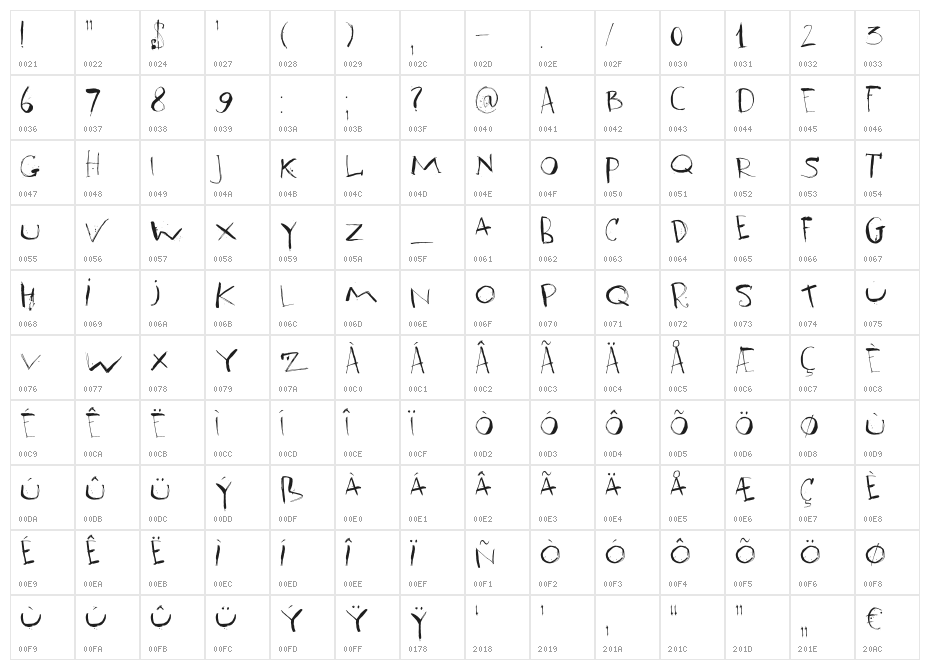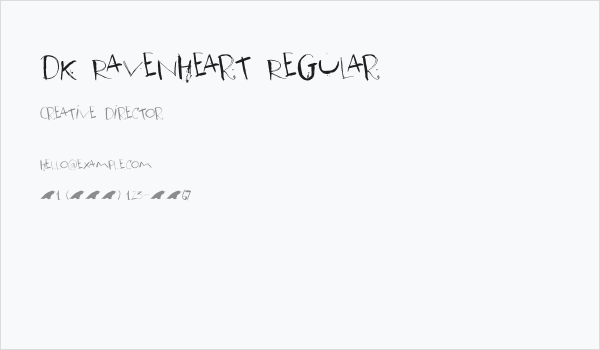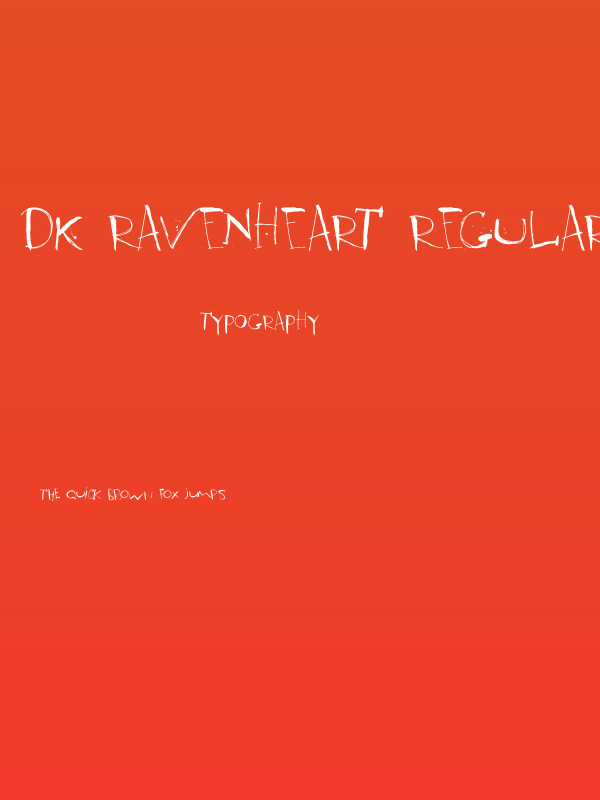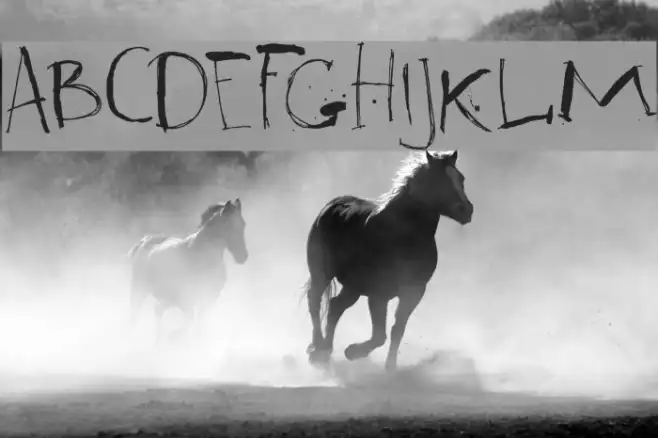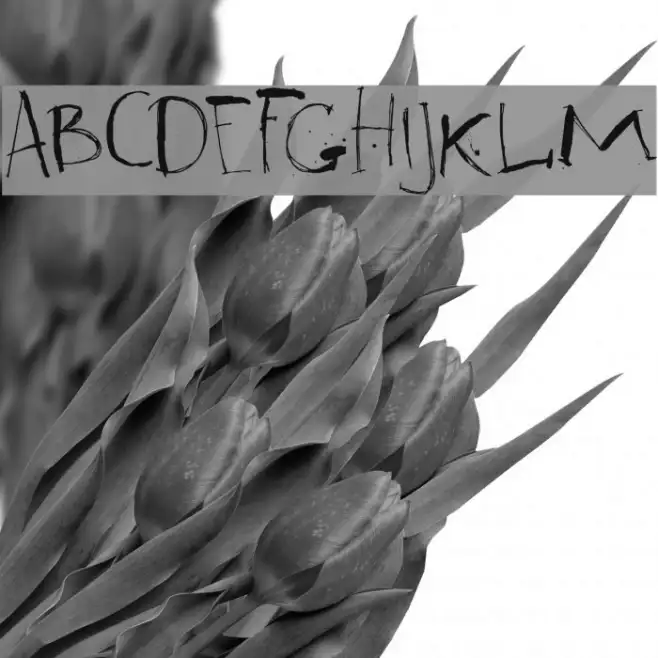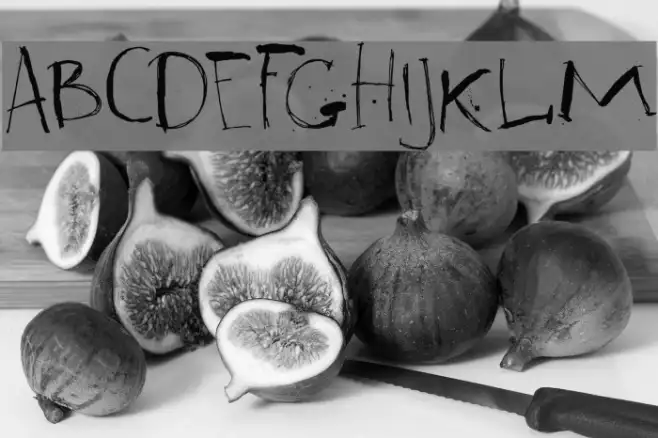
DK Ravenheart Regular Font
DK Ravenheart Regular Description
This font exudes a raw, edgy aesthetic with its hand-drawn, brush-like strokes that give each character a unique, organic feel. The letters are irregular and slightly distorted, adding to the font's dynamic and expressive nature. The uppercase and lowercase letters maintain a consistent style, with jagged edges and varying line thicknesses that create a sense of movement and energy. The inclusion of raven silhouettes as special characters adds a thematic, gothic touch, making it ideal for projects that require a dramatic or mysterious vibe. The numbers and punctuation follow the same artistic style, ensuring a cohesive look across all text elements.
| Overall Style | Gothic, Edgy, Artistic |
| Proposed Projects | Ideal for horror-themed designs, album covers, posters, and any project requiring a dramatic, edgy aesthetic. |